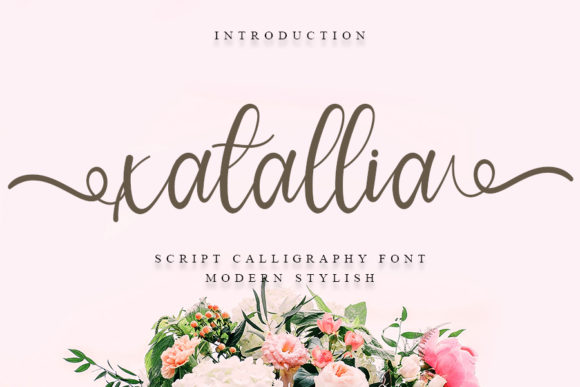
Behold Xatallia, the enchanting script font that exudes elegance and sophistication. Its delicate strokes, expertly balanced and varied in thickness, create a visual symphony that will elevate your designs to new heights.
Xatallia is the brainchild of FreshTypeINK, a renowned font foundry known for their exceptional craftsmanship and unwavering dedication to quality. With Xatallia, they've created a font that is not just a tool, but a work of art, ready to transform your creative visions into breathtaking realities.
Imagine your business cards, wedding invitations, or social media posts adorned with the graceful curves and sweeping swashes of Xatallia. It's the perfect font for adding a touch of refinement to any project, whether you're a seasoned designer or just starting your creative journey.
With Xatallia, you'll have access to a world of typographic possibilities. Its PUA encoding allows you to effortlessly access the full range of glyphs and swashes, giving you the freedom to experiment and create designs that are truly unique and captivating.
But Xatallia is more than just a collection of letters and symbols. It's an expression of your individuality, a reflection of your taste and style. It's the perfect font for those who appreciate the finer things in life, those who seek beauty in every detail.
Join the ranks of discerning designers and creative professionals who have embraced Xatallia's allure. Let its delicate strokes dance across your designs, captivating your audience with their timeless grace and elegance.
Xatallia is more than just a font; it's an investment in your creativity, a gateway to a world of design possibilities. Embrace its beauty, unleash your imagination, and create masterpieces that will leave an indelible mark on the world.